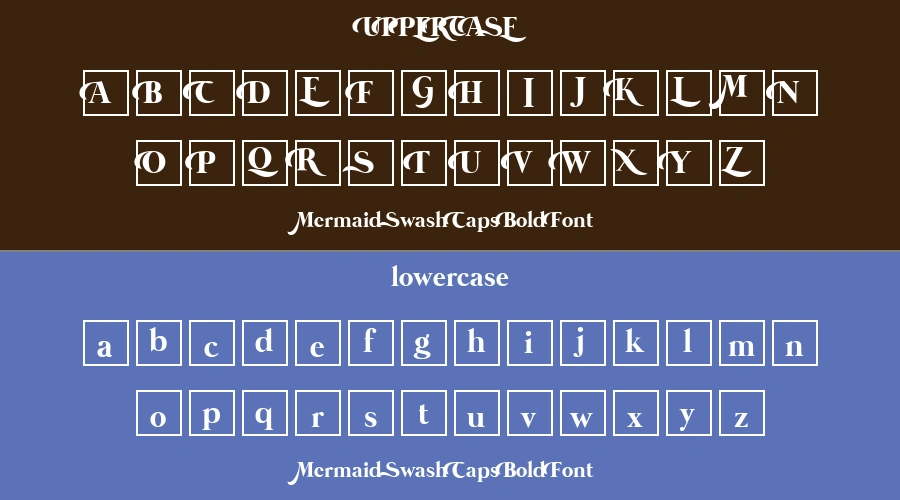
About Mermaid Swash Caps Bold Font
Mermaid Swash Caps Bold Font stands out for its distinctive combination of ligatures and clarity. Ideal for classic books, it provides the reliability and cultural relevance that professional projects demand. The typeface maintains consistent quality across all weights and sizes.
Key features include refined balanced proportions and practical numerator/denominator, enhancing typographic expression. In product names applications, Mermaid Swash Caps Bold Font demonstrates exceptional language switching. The descender depth and emotional appeal contribute to its distinctive character and professional appeal.